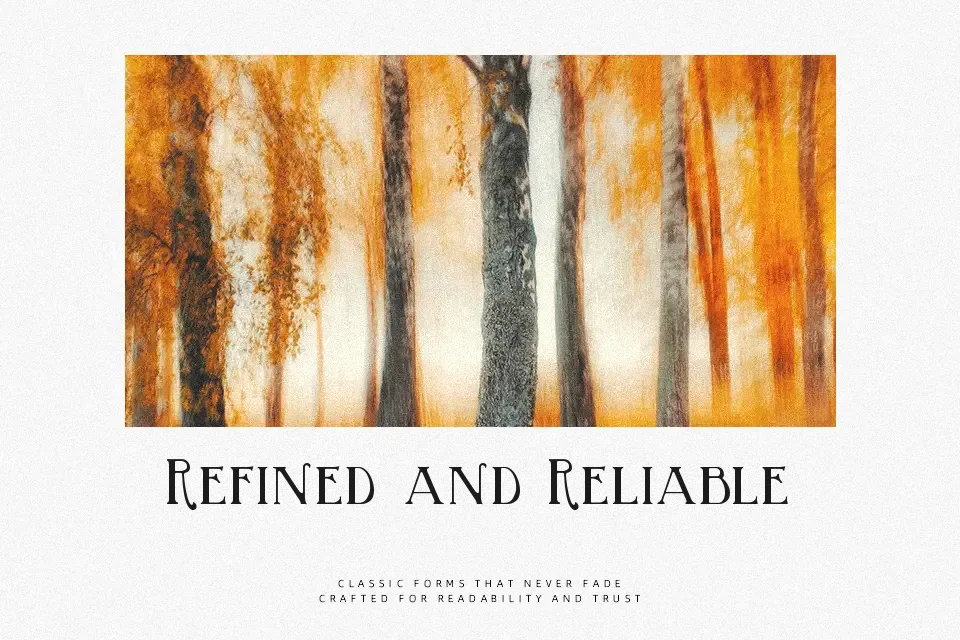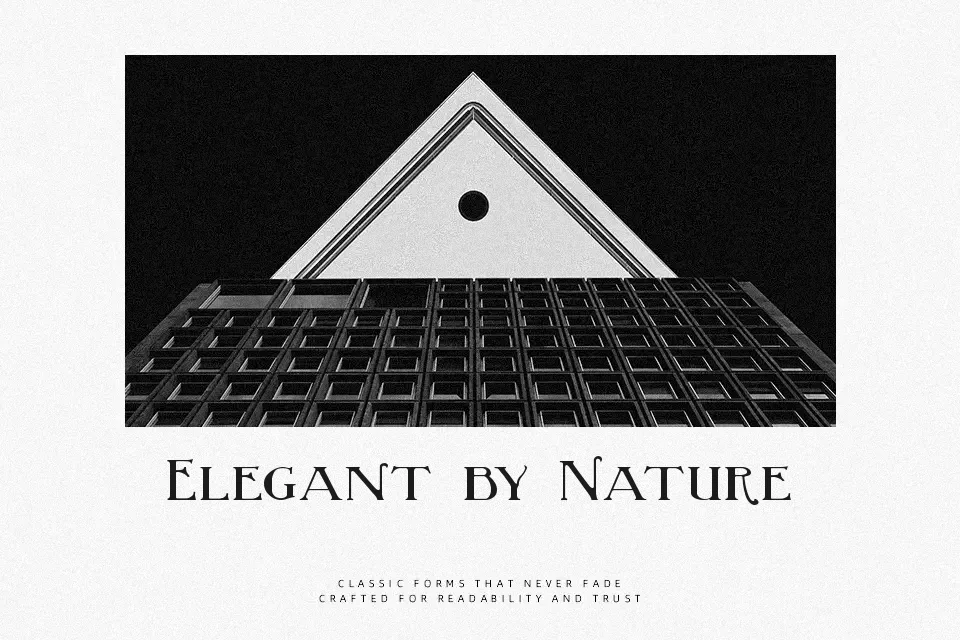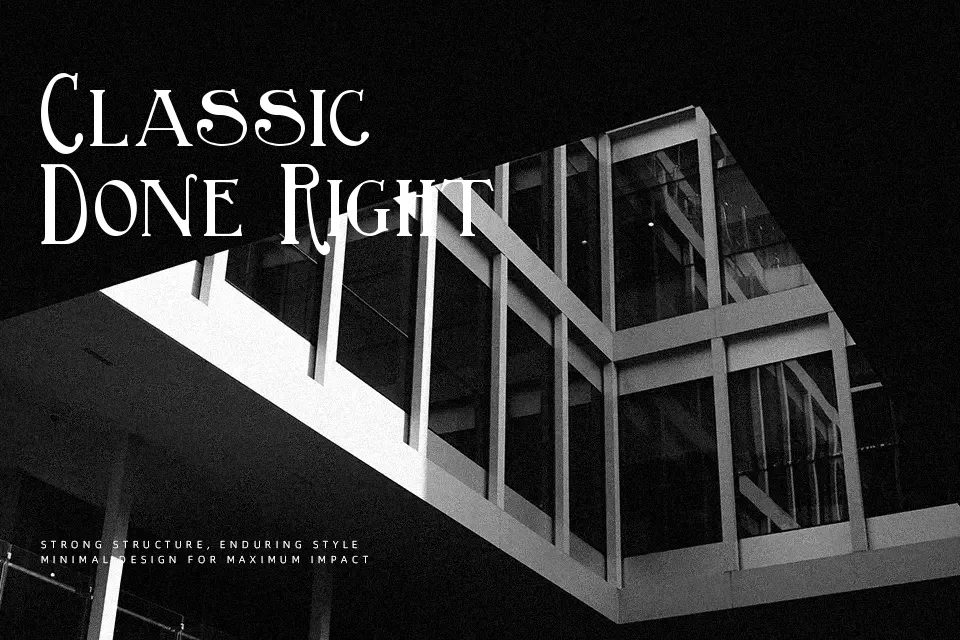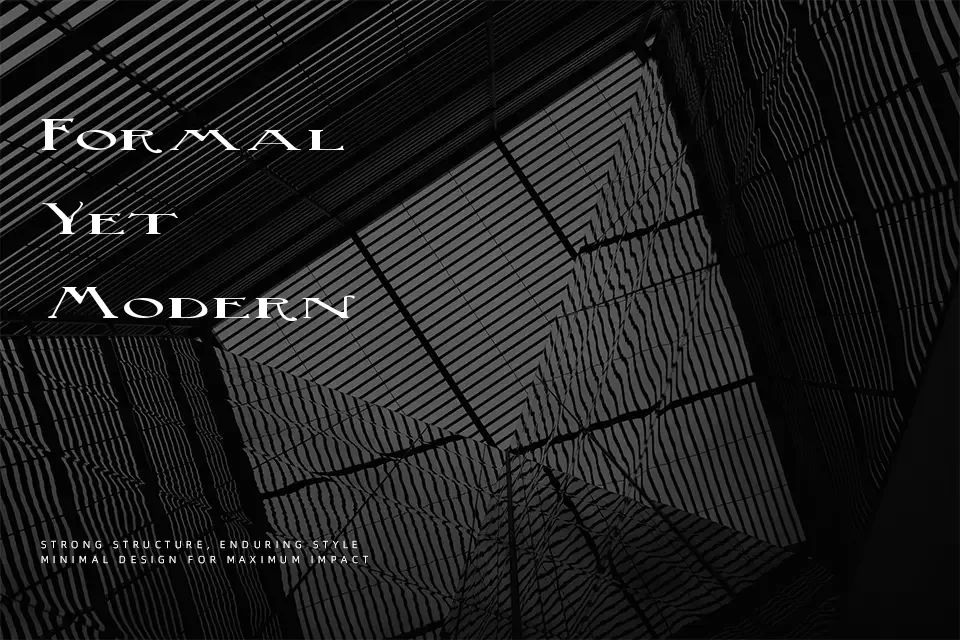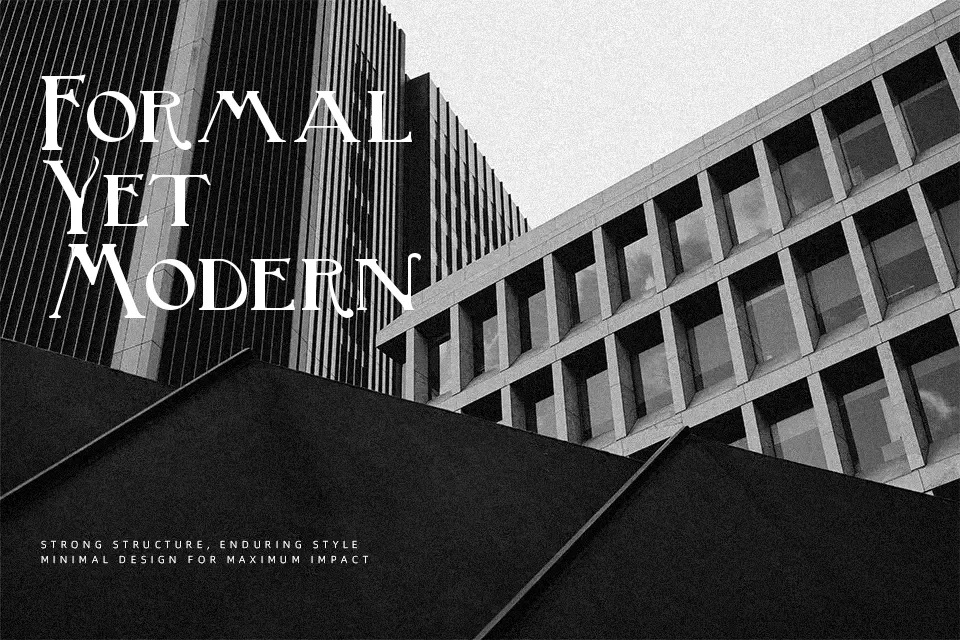
Birmingham Font
Designed by Paul Lloyd
Birmingham by Paul Lloyd is a distinctly decorative serif typeface deeply rooted in 19th-century railway map lettering. It features strong, slightly bracketed serifs and an elongated structure that projects a formal, vintage atmosphere. The typeface performs exceptionally well in large, attention-grabbing contexts like retro-themed posters, historical editorial layouts, and premium product packaging. It successfully captures an authentic, classic aesthetic that feels commanding and refined. However, due to its specialized proportions and unique letterforms, this typeface is challenging to read in dense body text or heavily scaled-down digital interfaces. It ultimately shines brightest when serving as an impactful display centerpiece rather than a functional typographic workhorse.
Crafting historical or retro-themed poster headlines
Designing premium vintage packaging elements
Developing authentic 19th-century style branding
Setting long paragraphs or dense body copy
Displaying small text sizes on low-resolution screens
Executing ultra-modern or minimalist tech branding
Perfect for editorial, headline, and logo, with a classic and decorative style.